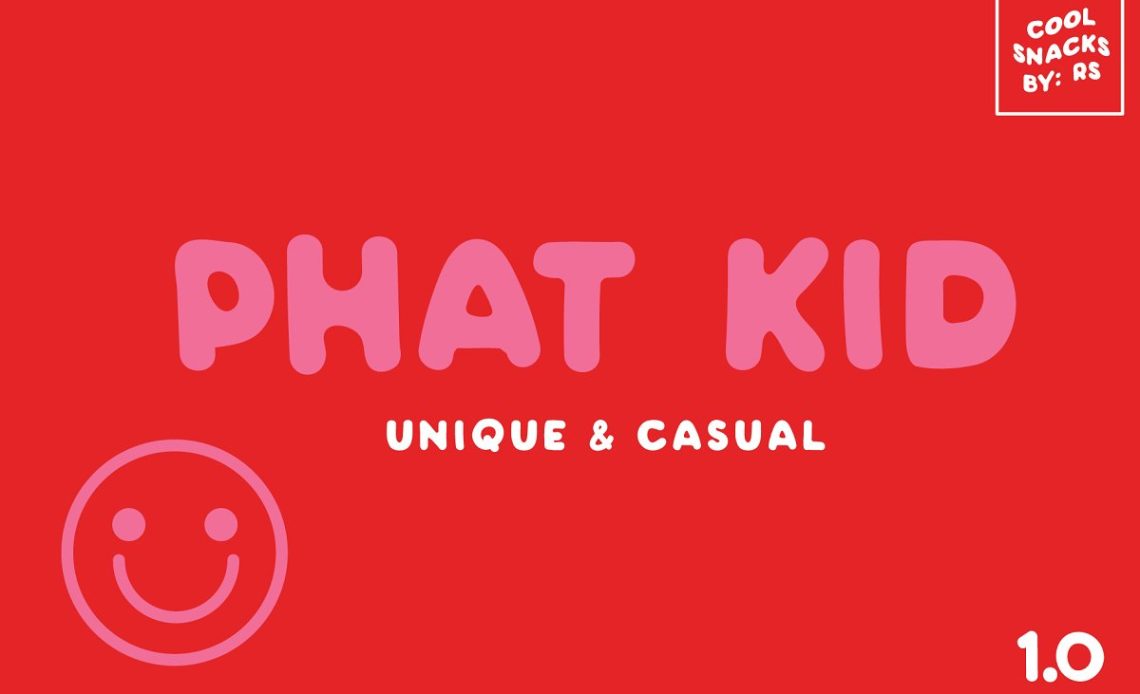
Are you tired of using the same boring fonts for your kid's projects? Look no further than the PHAT KID FONT! Created by the talented Kristina Klaffke, this font is the perfect addition to any children's design project.
With its playful and casual hand-lettered style, the PHAT KID FONT is sure to capture the attention of both kids and adults alike. It's an all-caps font with punctuation that's easy to read and will add a fun touch to any project.
Whether you're working on a school project, a birthday invitation, or just want to add some personality to your website, the PHAT KID FONT is the best font for kids designs. It's the perfect choice for any project that needs a touch of whimsy and playfulness.
But don't just take our word for it, try the PHAT KID FONT for yourself and see how it transforms your designs. Your kids will love the fun and exciting look it brings to their projects, and you'll love how easy it is to use.